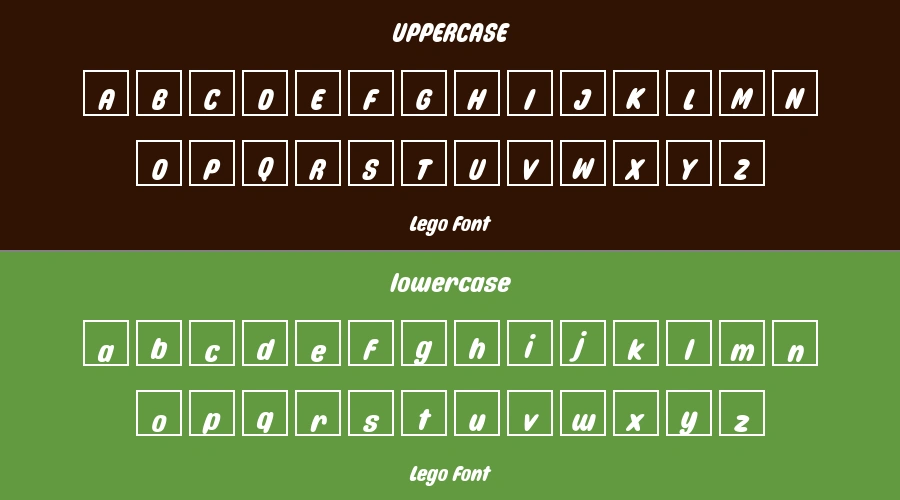
About Lego Font
Lego Font embodies typographic excellence through its masterful combination of alternates and recall value. Created for government publications, this typeface delivers exceptional versatility and practical utility across all applications. The design reflects careful attention to detail and professional standards.
Advanced capabilities include distinctive tapered strokes and versatile subscript/superscript, giving designers creative control. When used in point-of-sale displays, Lego Font exhibits remarkable OCR compatibility. The harmonious balance between letterfit and user perception sets this typeface apart.